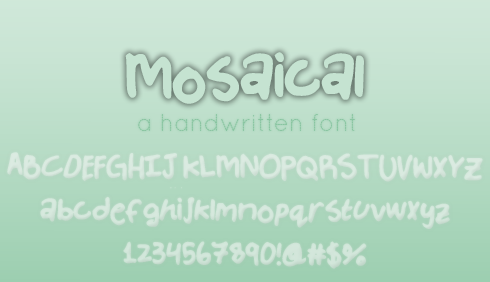
Preview and download Mosaical Font. Created by Meryl in Script Handwritten styles
Font name: | Mosaical |
Author: | Meryl |
Note by Meryl | |
First Font Ever...based off my own handwriting which more or less sucks. |